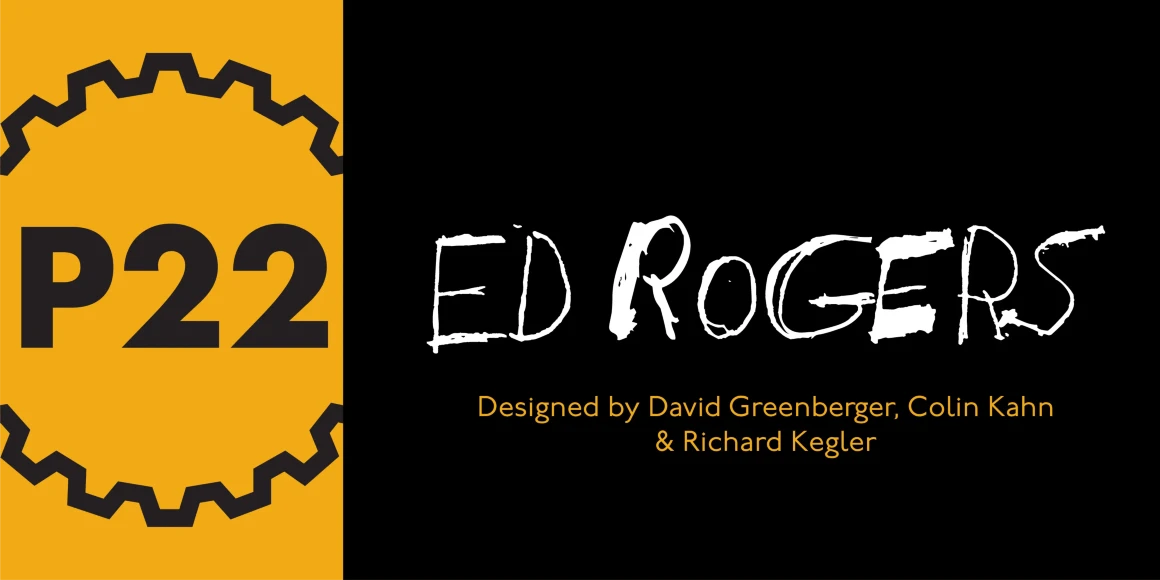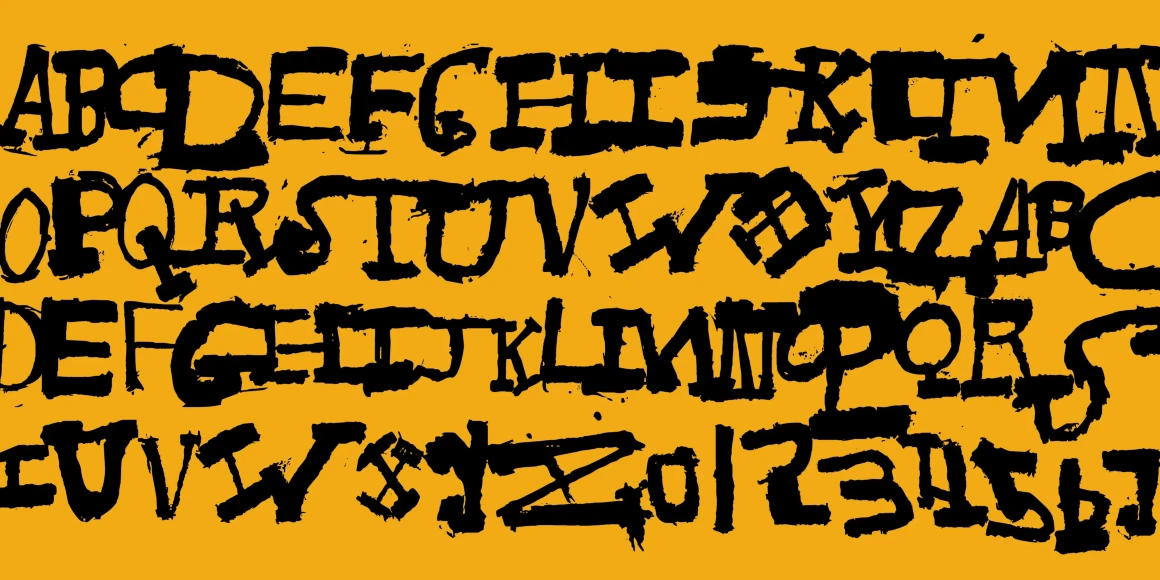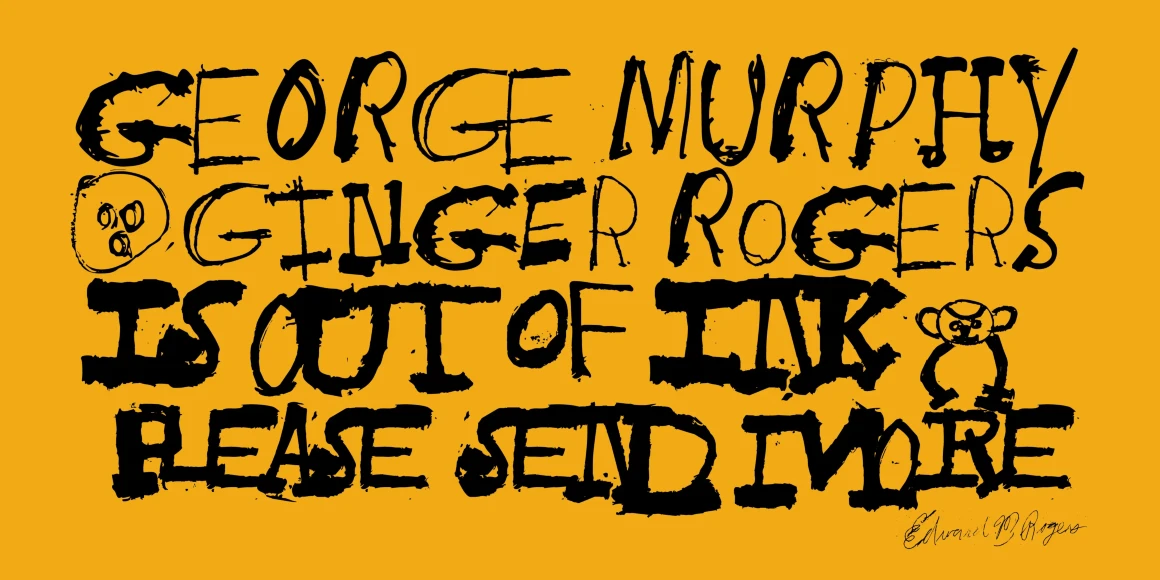
Ed Rogers
Ed Rogers (1925–2002) was an unlikely and unintentional art figure. Ed Rogers’ vibrant lettering is compelling in its characteristic inconsistency. The Ed Rogers font set features digitized versions of his lettering for truly unique design possibilities.
Designed by David Greenberger, Colin Kahn & Richard Kegler